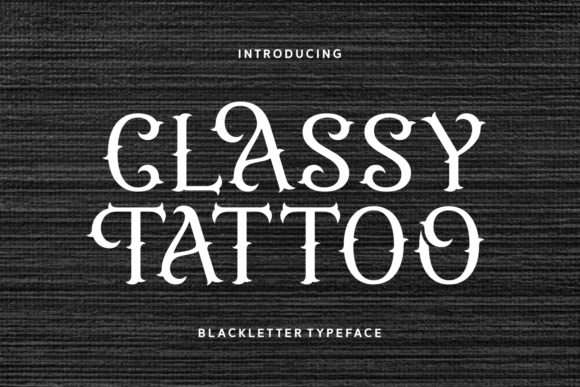
Classy Tattoo: A Modern Blackletter Typeface for Gothic-Inspired Design
In the world of typography, certain fonts stand out not just for their visual appeal but for the stories they tell and the cultures they represent. Classy Tattoo is one such typeface that captures the essence of tattoo culture while embracing the elegance of gothic aesthetics. Designed with a blend of rebellion and sophistication, this modern blackletter font offers a unique solution for creatives looking to infuse authenticity into their designs without compromising on style.
What Makes Classy Tattoo Unique?
Classy Tattoo draws from traditional blackletter roots but reimagines them through a contemporary lens. Its sharp edges and delicate hooks give it a refined look that distinguishes it from more rugged or ornate alternatives often seen in tattoo-related design. This balance between structure and flair makes it an appealing choice for professionals who want to maintain a sense of class while still tapping into the edgy vibe associated with body art.
Unlike many blackletter fonts that lean heavily into medieval calligraphy, Classy Tattoo has been optimized for clarity and consistency at various sizes. This means it works well in both large-scale applications like signage and small details such as text on a patch or label—something especially important when designing for tattoos themselves.
Key Features and Visual Characteristics
- Clean, Sharp Edges: The font avoids excessive ornamentation, making it easier to read and more versatile across different mediums.
- Delicate Hooks: These subtle flourishes add character without overwhelming the design, allowing for a more sophisticated appearance.
- Balanced Structure: Each letter is proportionally designed to ensure readability and visual harmony, even in complex compositions.
- Modern Blackletter Style: While inspired by historical forms, it incorporates contemporary design principles that suit today’s branding needs.
This attention to detail ensures that Classy Tattoo doesn’t just look good—it functions effectively in a wide range of contexts. It’s not merely decorative; it's a working font that can be trusted to deliver results.
Real-World Applications and Use Cases
One of the standout qualities of Classy Tattoo is its adaptability. It finds relevance in several niche areas where a strong typographic identity is essential:
Tattoo Studio Branding
Tattoo studios need a logo that reflects their ethos. Classy Tattoo offers a bold yet elegant option that communicates professionalism while staying true to the rebellious spirit of the industry. Its clean lines prevent it from appearing cluttered, which is crucial for logos that will be used across multiple platforms—from websites to merchandise.
Apparel and Merchandise
For clothing brands or accessory designers targeting the alternative fashion market, using Classy Tattoo can help create a cohesive visual language. Whether it’s screen-printed on a t-shirt or embroidered on a leather jacket, the font holds up well in production environments and maintains legibility under different conditions.
Album Covers and Music Branding
Musicians and producers in genres like punk, metal, or darkwave often seek typography that mirrors the mood of their music. Classy Tattoo provides a gothic feel that complements these styles without being overly dramatic. It adds weight to titles and subtitles while remaining accessible to fans and listeners.
Digital Content and Publishing
Bloggers, publishers, and content creators interested in niche topics like subcultures, history, or art can use this font to enhance headers and pull quotes. Its distinctiveness helps draw attention to key points without detracting from the overall message. However, due to its blackletter nature, it should be reserved for stylistic elements rather than long blocks of text.
Evaluating Quality and Usability
When assessing a font like Classy Tattoo, quality isn’t just about how it looks—it’s also about how it performs technically. In this regard, the font demonstrates solid craftsmanship. The letters are evenly spaced, the strokes are consistent, and the overall design supports both digital and print use.
Usability is another strength. Because it’s a modern take on blackletter, it avoids the common pitfalls of older scripts, such as poor legibility or inconsistent character shapes. This makes it more user-friendly for those who may not have extensive experience working with stylized fonts.
Flexibility is also worth noting. The font pairs well with sans-serif or minimalist typefaces for contrast, making it a valuable asset in multi-layered design projects. For example, using Classy Tattoo for headlines alongside a simple serif font for body copy can create a striking visual hierarchy that feels intentional and professional.
Who Can Benefit Most from Using Classy Tattoo?
While Classy Tattoo is ideal for any project involving tattoo culture or gothic themes, it particularly suits specific audiences:
- Graphic Designers: Those specializing in branding, packaging, or editorial design will appreciate its versatility and aesthetic depth.
- Entrepreneurs: Business owners launching a brand in the lifestyle, apparel, or entertainment industries can leverage this font to build a distinctive visual identity.
- Marketers and Content Creators: Anyone needing eye-catching visuals for campaigns, social media posts, or blog features will find value in its expressive yet controlled form.
- Freelancers and Small Studios: Independent creators often need tools that offer impact without requiring advanced technical skills. Classy Tattoo fits this need perfectly.
Potential Limitations and Considerations
No font is universally applicable, and Classy Tattoo is no exception. One consideration is its suitability for extended text. As a blackletter typeface, it can become fatiguing to read over long passages. Therefore, it’s best used for short phrases, logos, or title treatments.
Another point to consider is cultural sensitivity. Blackletter fonts have a rich history, including associations with nationalist movements in the past. While Classy Tattoo itself does not carry such connotations, users must be mindful of context and audience when employing it in public-facing materials.
Additionally, because of its gothic influence, it may not align with every brand’s tone. If your target audience prefers minimalism or a more neutral aesthetic, this font might not be the best fit. Always evaluate whether the visual language of the font matches the intended message of your project.
Practical Recommendations for Implementation
To get the most out of Classy Tattoo, start by defining the role it will play in your design. Is it a headline, a subtitle, or part of a larger layout? Once you’ve established its function, test it in different weights (if available) and sizes to see how it responds.
Here are some practical tips for integrating the font into your workflow:
- Use it Sparingly: Apply it only where it adds the most impact, such as logos, banners, or taglines.
- Pair Thoughtfully: Combine it with complementary fonts to avoid visual overload and maintain readability.
- Test in Real Environments: Before finalizing a design, check how it looks in print, on screens, and in different lighting conditions.
- Consider Licensing: Ensure the font is appropriately licensed for your intended use, especially if you’re incorporating it into commercial products.
By following these guidelines, you can ensure that Classy Tattoo enhances your work rather than complicates it.
Long-Term Value and Design Trends
Typography trends evolve, but certain fonts endure because they strike a balance between timeless appeal and modern adaptability. Classy Tattoo falls into this category. Its design nods to tradition while meeting the needs of current creative practices. This duality gives it longevity in a rapidly changing design landscape.
Moreover, as tattoo culture continues to gain mainstream acceptance, having a font that authentically represents this space becomes increasingly valuable. Classy Tattoo allows designers to tap into this growing interest without sacrificing professionalism or quality.
Final Thoughts
Classy Tattoo is a compelling addition to any designer’s toolkit, particularly for those engaged in projects related to tattoo culture, gothic aesthetics, or alternative branding. Its clean execution of a historically complex style makes it both approachable and impactful. When used thoughtfully, it can elevate a project’s visual identity and connect more deeply with its intended audience.
If your work requires a font that balances edge with elegance, Classy Tattoo is definitely worth exploring. Just remember to consider its purpose, limitations, and the broader context in which it will be used. With the right application, it can become a signature element of your creative output.